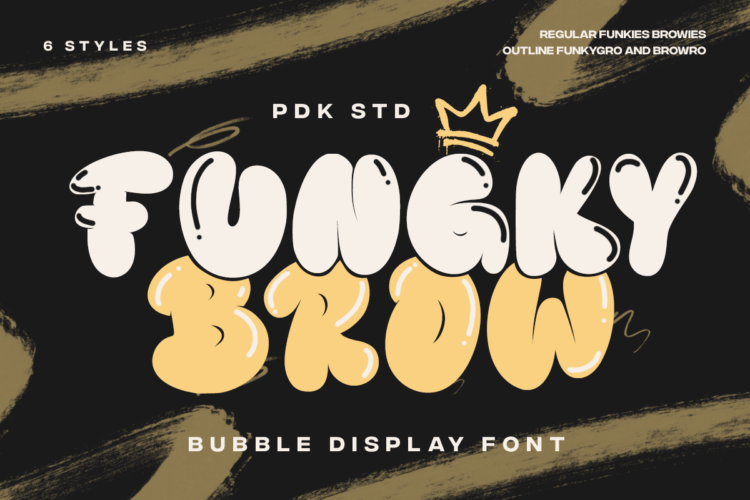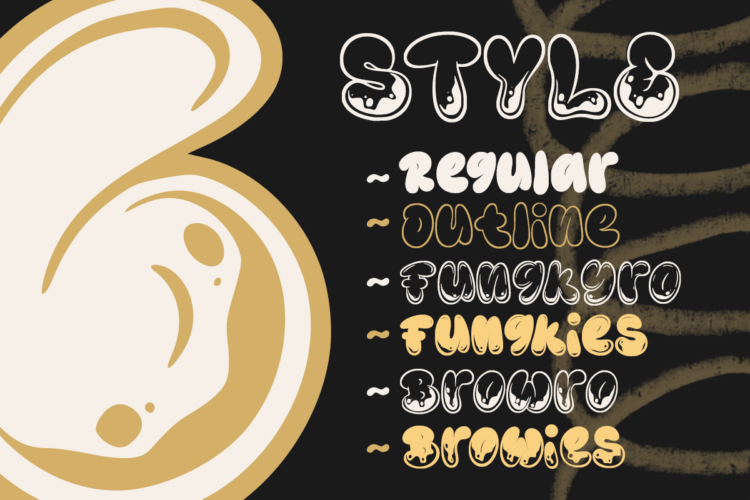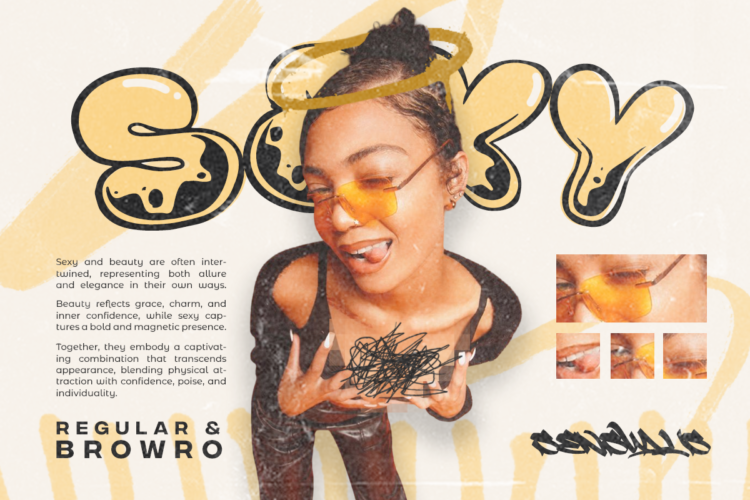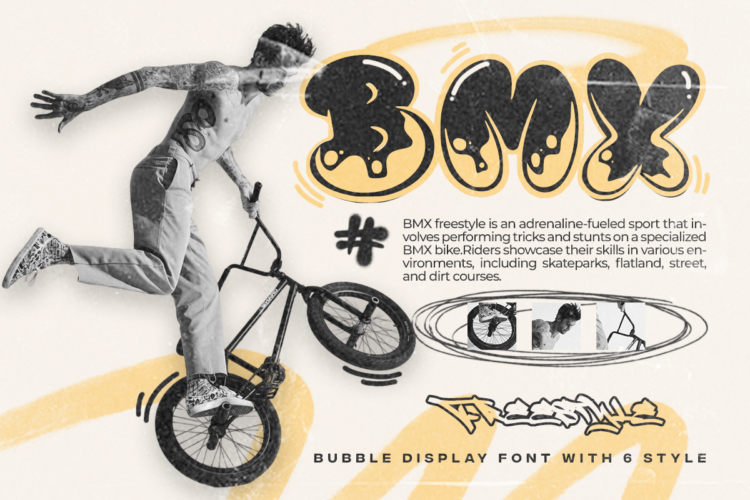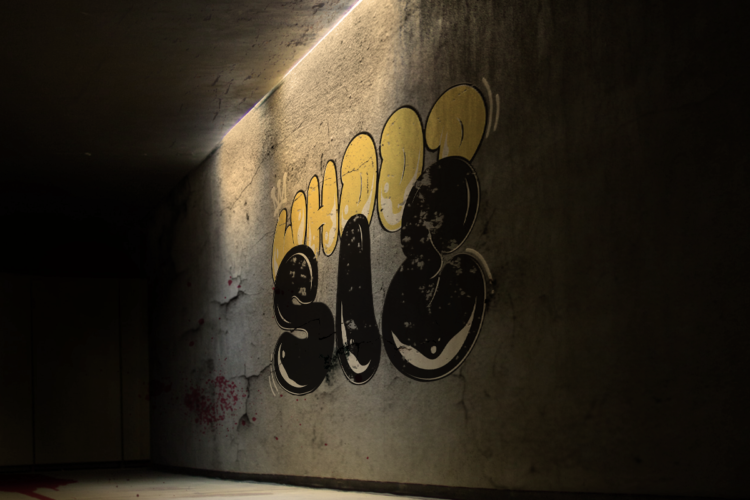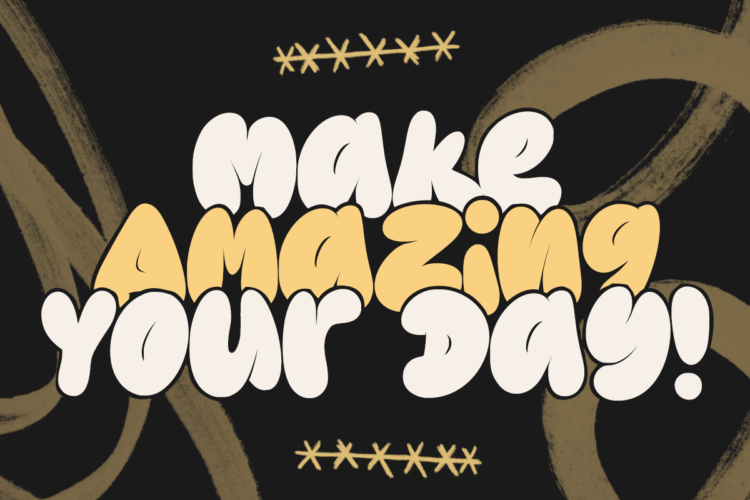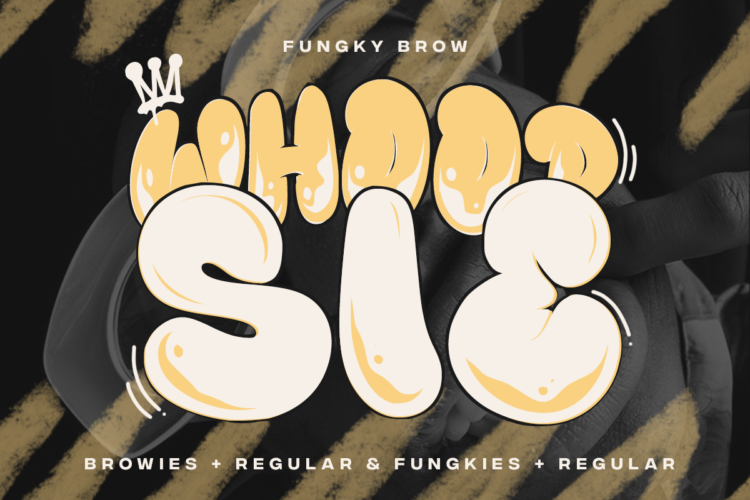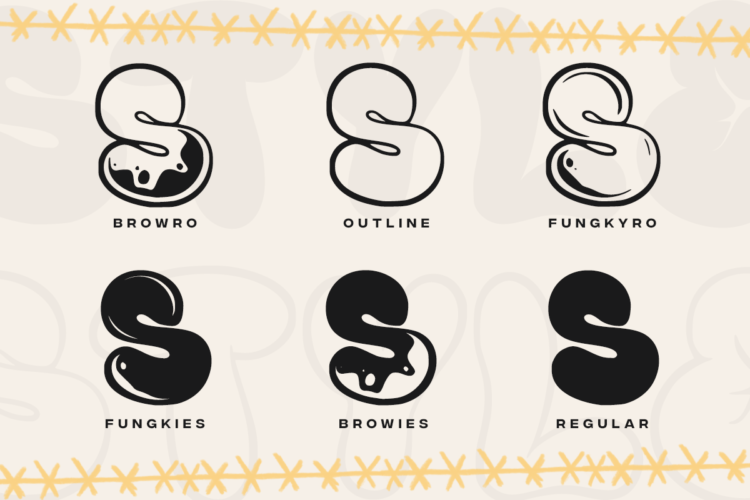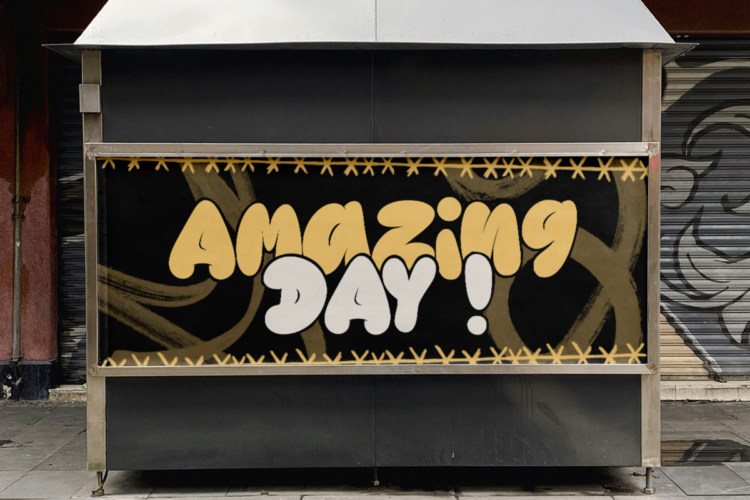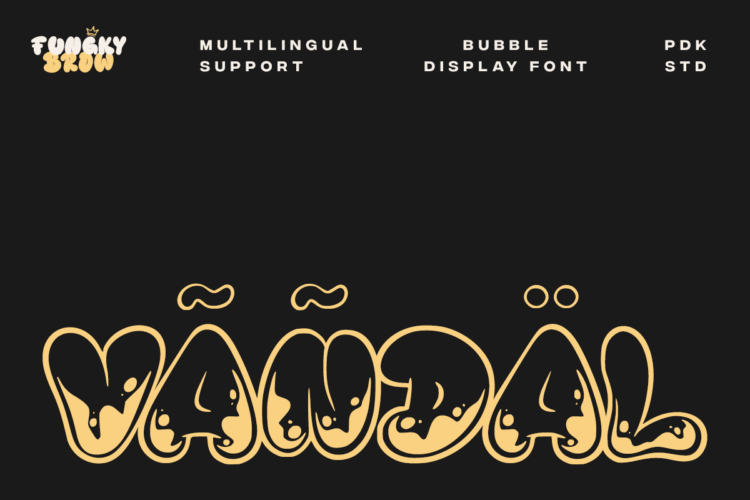
Introducing Funky Brow, a lively bubble graffiti font that injects energy and personality into your designs. With six unique styles—Regular, Funkies, Browies, Outline, Funkygro, and Browro—this font family brings a fresh twist to bubble-inspired typography, ideal for graffiti art and streetwear.
Each style offers a distinct flair: Regular provides a clean base, Browies adds a “drop bubble” effect, and Funkies amplifies it with bolder accents. Outline gives a classic graffiti outline, Browro merges outline with drop bubbles, and Funkygro goes big with bold drop bubbles, perfect for creating standout designs.
- 6 style : Regular, Funkies, Browies, Outline, Funkygro and Browro
- Unique letterforms